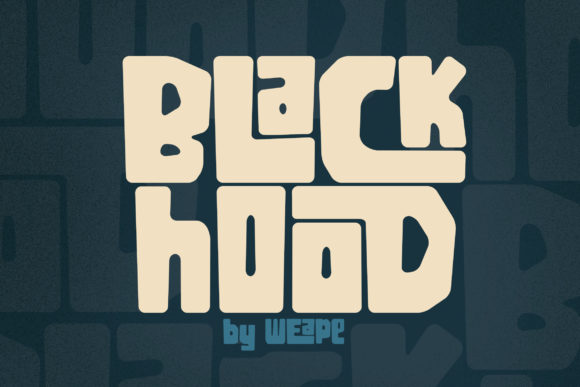
Welcome to the world of Blackhood, where typeface and artistry intertwine to create a visual masterpiece. This round and smooth display font is the brainchild of Weape Design, crafted with meticulous attention to detail and an unwavering passion for excellence.
Blackhood is not just a font; it's a gateway to unlocking the boundless realms of your imagination. Its captivating curves and gentle lines dance across the page, inviting you to express your innermost thoughts and emotions with unparalleled grace and flair. Whether you're a seasoned designer or just starting your creative journey, Blackhood will elevate your projects to new heights, turning them into visual symphonies that resonate with your audience.
With Blackhood at your fingertips, the possibilities are endless. Craft eye-catching headlines that demand attention, design captivating logos that leave a lasting impression, or create stunning posters that ignite the imagination. The font's versatility knows no bounds, making it the perfect choice for a wide range of design projects, from elegant wedding invitations to bold advertising campaigns.
But what truly sets Blackhood apart is its emotional depth. Each curve, each stroke, and each letterform is imbued with a sense of warmth and playfulness that will infuse your designs with a touch of magic. It's a font that speaks to the heart, evoking feelings of joy, wonder, and inspiration.